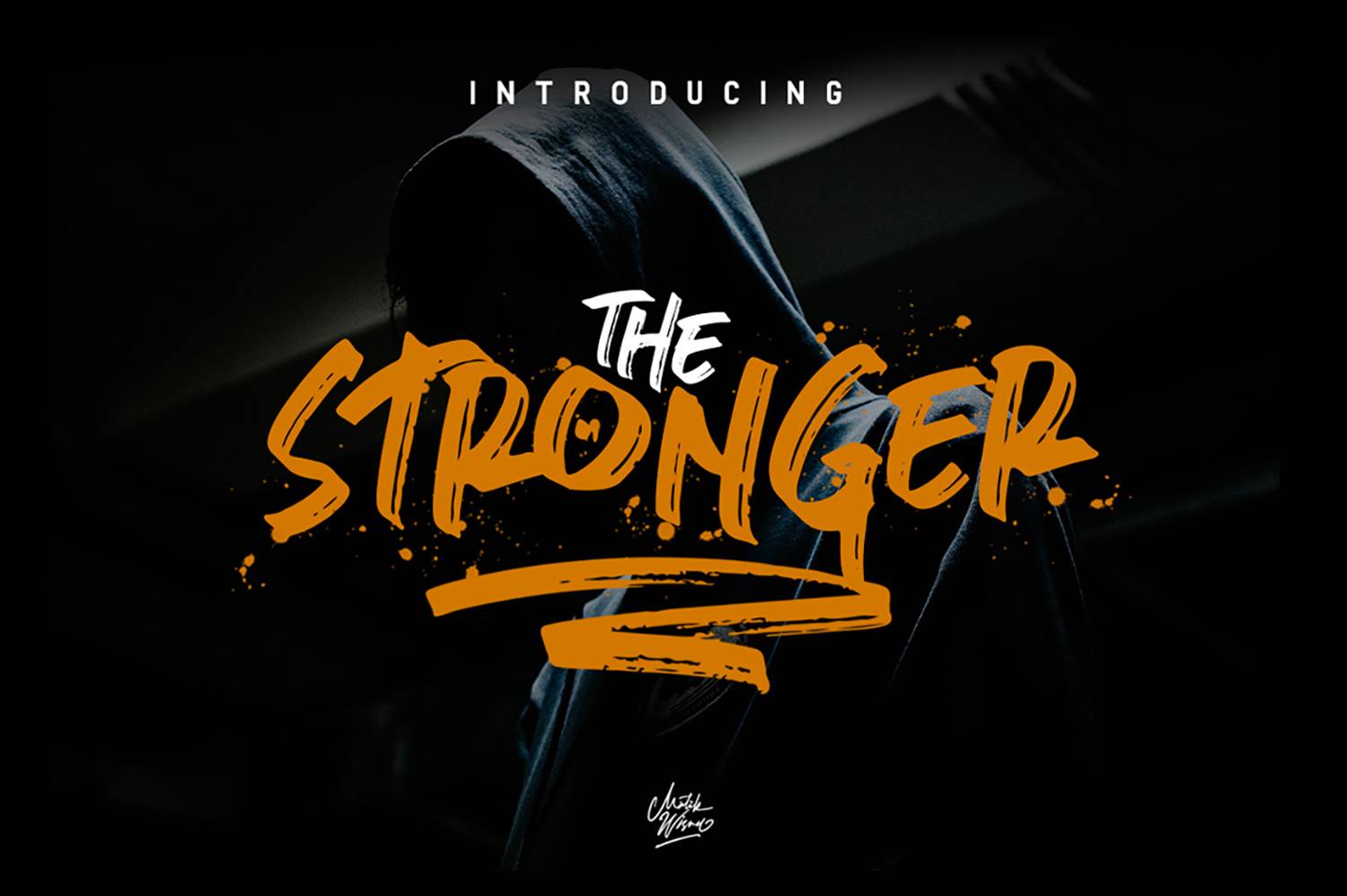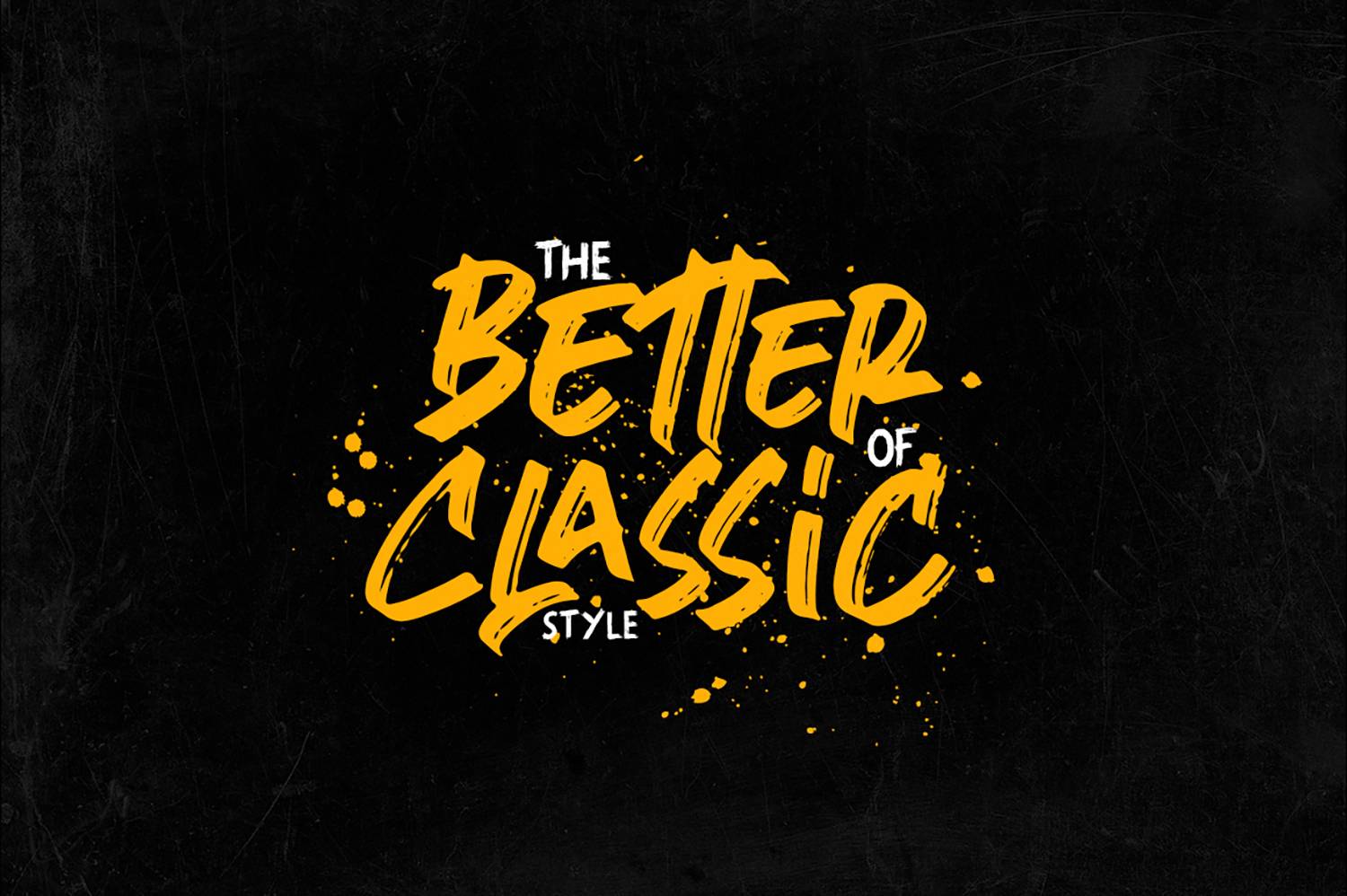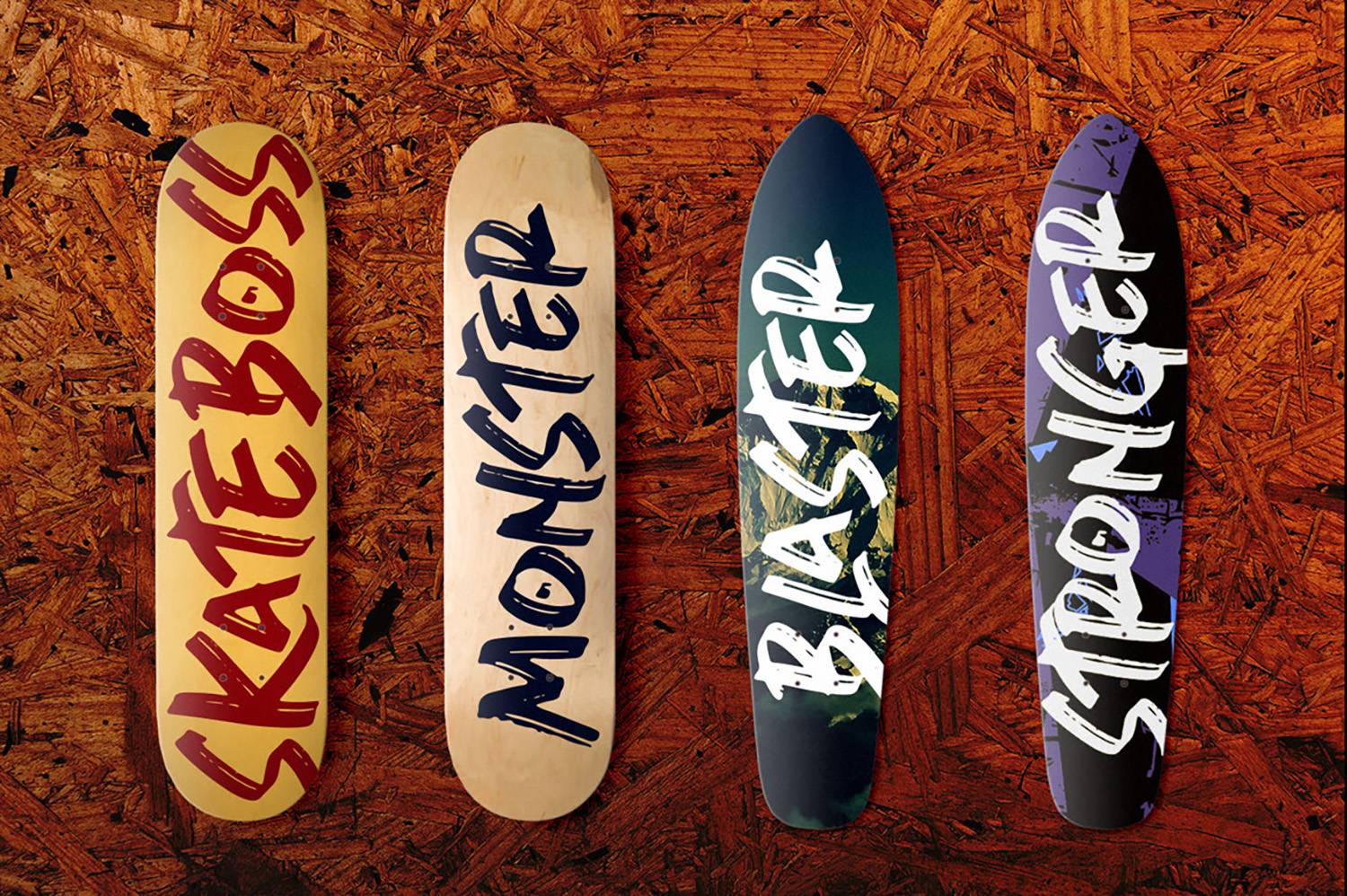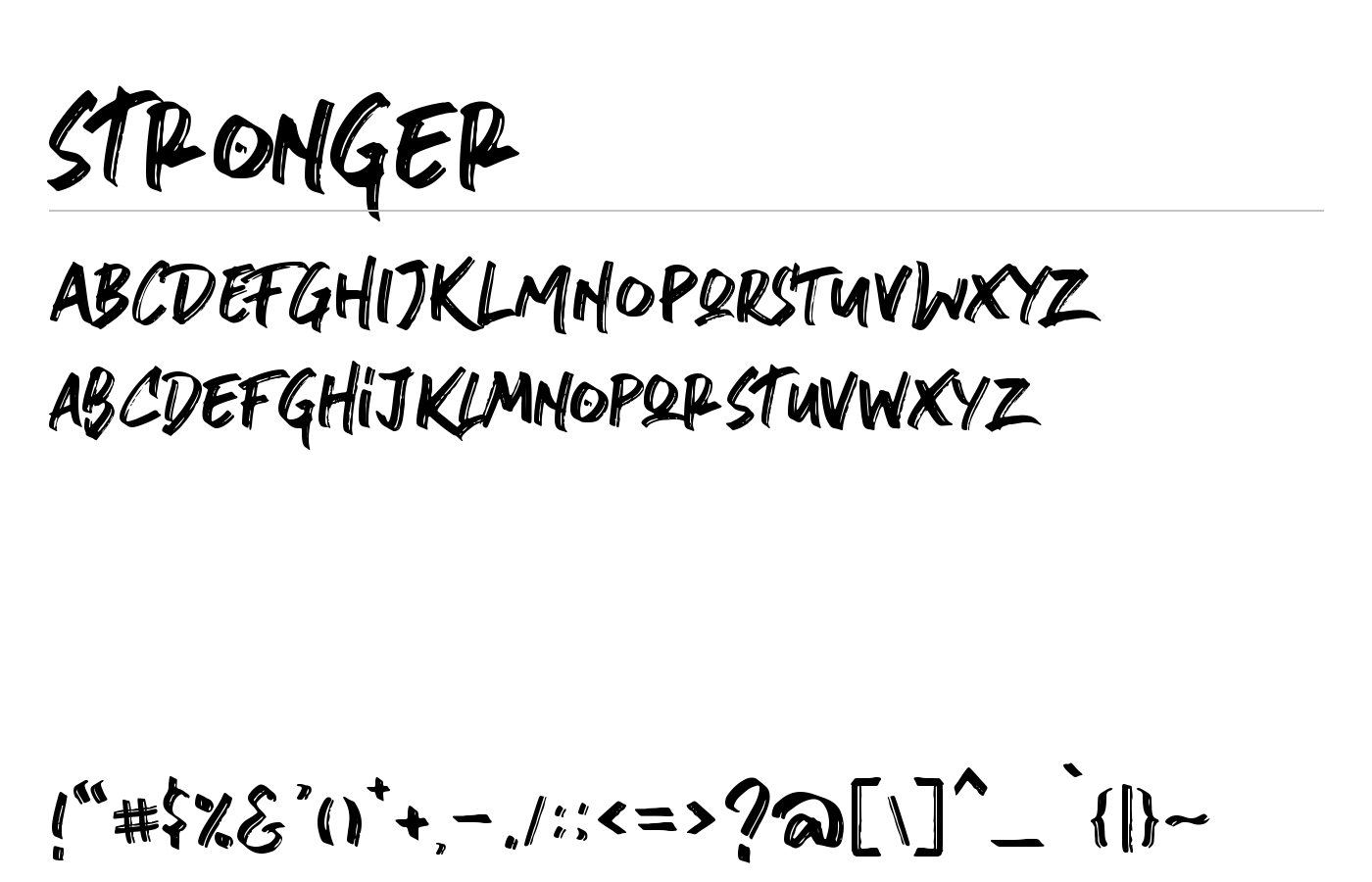
The Stronger Font is a bold, energetic script with a hand-painted feel, characterized by thick, irregular strokes and a casual, brush-like texture. Its dynamic, slightly condensed letterforms convey strength and creativity, making it perfect for impactful headlines, logos, and branding that seek to express confidence and artistic flair. This font works well in designs wanting to evoke a lively, modern, and approachable personality.
The Stronger Font
About The Stronger Font
| Font family | The Stronger Font |
| Designer | Malik Wisnu |